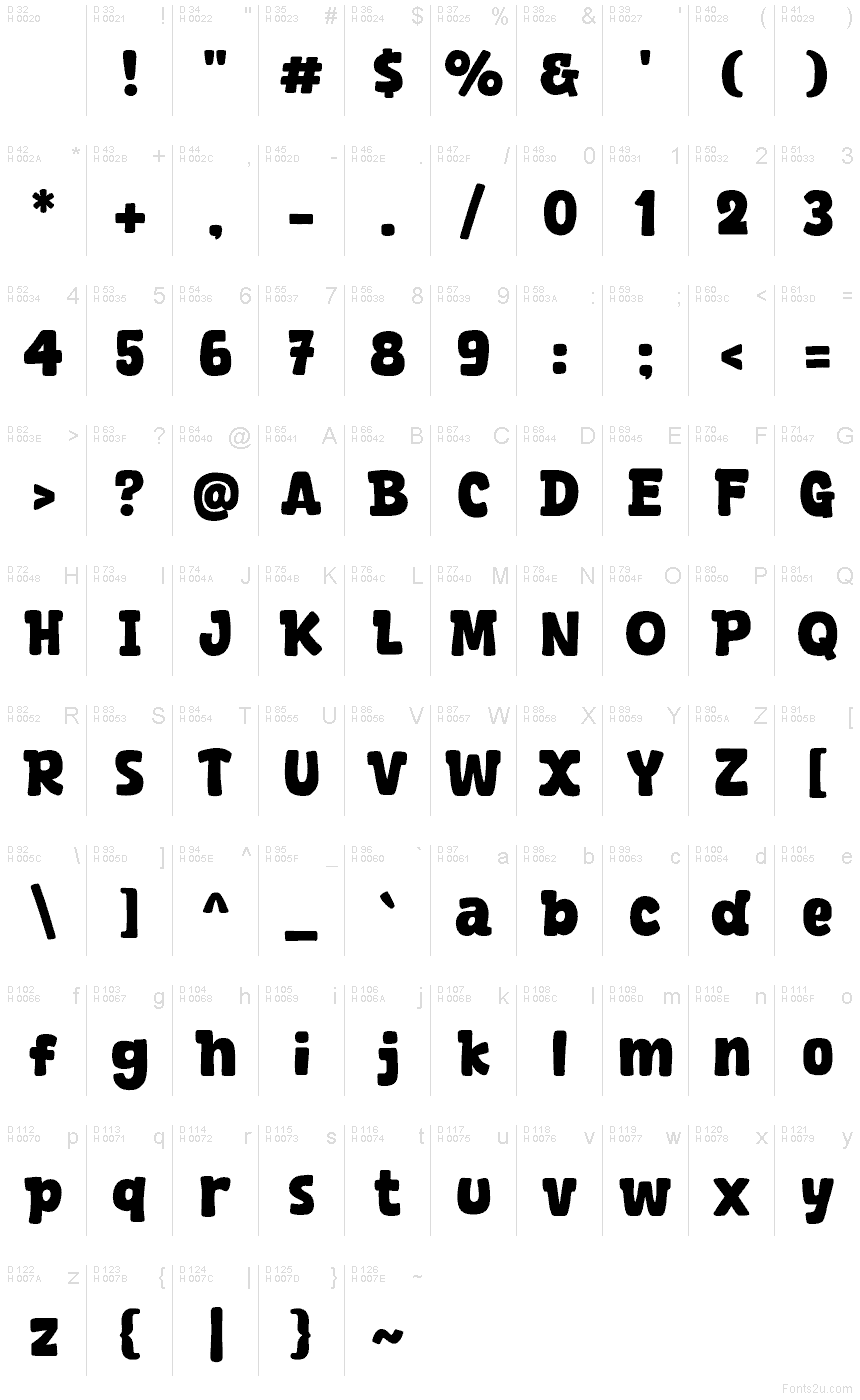
Free Royalty font by Khurasan is a free bold cartoon font. It solves the tricky brief of “fun but readable” with pillowy, rounded forms, soft inky edges, and a gentle bounce that keeps lines lively without wobbling off grid. The strokes feel chunky yet balanced, with open counters and a steady rhythm that holds up at poster scale and on small badges alike.
Using Free Royalty, headlines pop for kids’ branding, birthday posters, classroom printables, snack packaging, stickers, and YouTube thumbnails. This free font shines on anything that needs a cheerful shout without visual clutter. Pair it with a clean light sans-serif for body copy, and give it a bit of breathing room-slightly looser tracking lets those bubbly shapes glow.